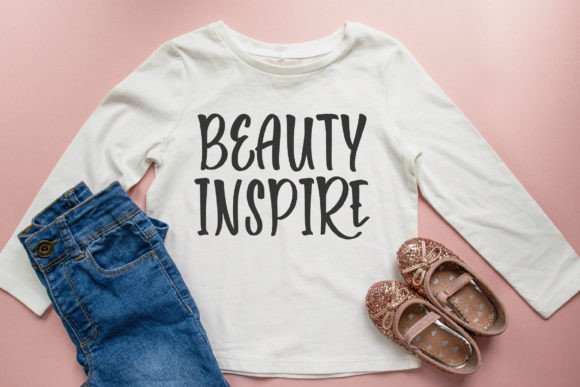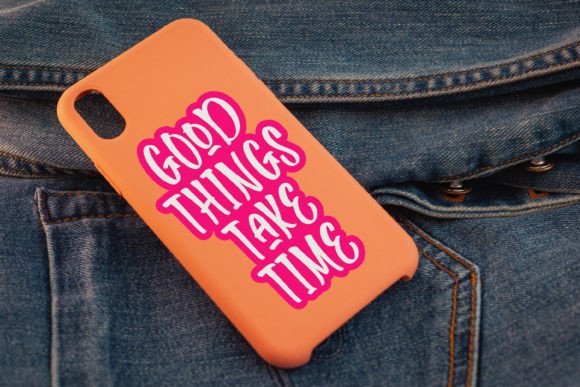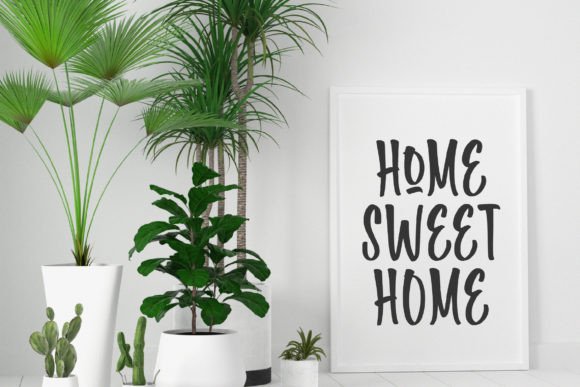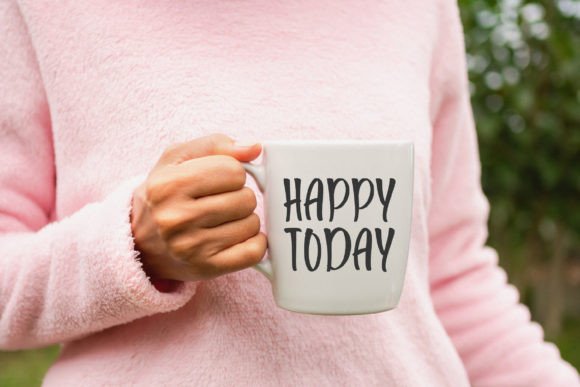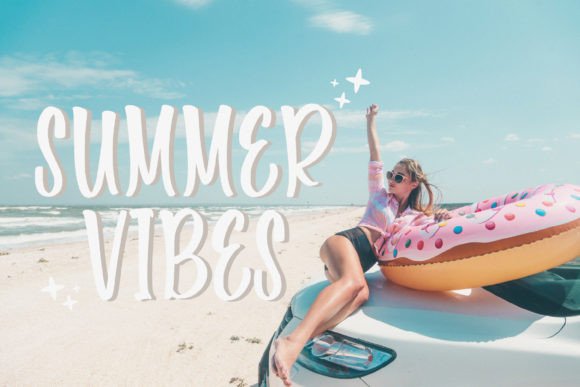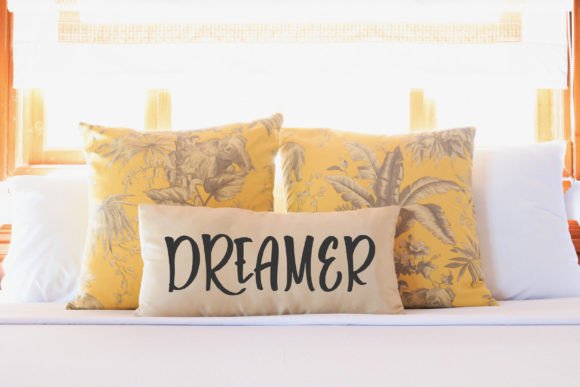
Introduction to Howdy Candy Font
As I stood in front of my chalkboard, surrounded by scattered markers and scraps of paper, I knew I needed something special to make my creative project stand out. That’s when I stumbled upon the perfect solution – the Howdy Candy Font. This beautiful, handwritten display font is more than just a design resource; it’s a key to unlocking a world of authentic, high-quality designs that transport your audience to a bygone era.
So why settle for a generic font when you can add a touch of whimsy and personality to your designs with the Howdy Candy Font? Let’s take a closer look at this charming font and explore the many ways it can bring your creative projects to life.
Key Features of Howdy Candy Font
- Unique Western-inspired design with a touch of sweetness, perfect for creative projects.
- High-quality font with transparent background, ideal for designers and artists working on digital projects.
- Available in a single weight, making it easy to use in a variety of design contexts.
- Designed with a high resolution (300 DPI) for crisp and clear display, suitable for both digital and print projects.
- Perfect for adding a playful and whimsical touch to your design, from branding materials to digital art.
Honest Review: Howdy Candy Font
I recently stumbled upon the Howdy Candy Font while searching for a fun design resource for a creative project. I was excited to give it a try, and I must say it didn’t disappoint.
- ✨ The font is highly versatile and can be used for a wide range of creative projects, from invitations to digital graphics.
- ⚠️ The font may not be suitable for formal or professional projects due to its playful and whimsical nature.
- ⚠️ Some users may find the font’s size and spacing a bit inconsistent, which can affect overall readability.
Overall, I was impressed with the Howdy Candy Font’s high quality and ease of use. While it may not be the best choice for every project, it’s an excellent design resource for those looking for a fun and creative touch.
For best results, use the Howdy Candy Font on a transparent background to create a unique and eye-catching design. Experiment with different font sizes and styles to add visual interest to your project. You can also combine the font with other design elements, such as graphics and images, to create a cohesive look.